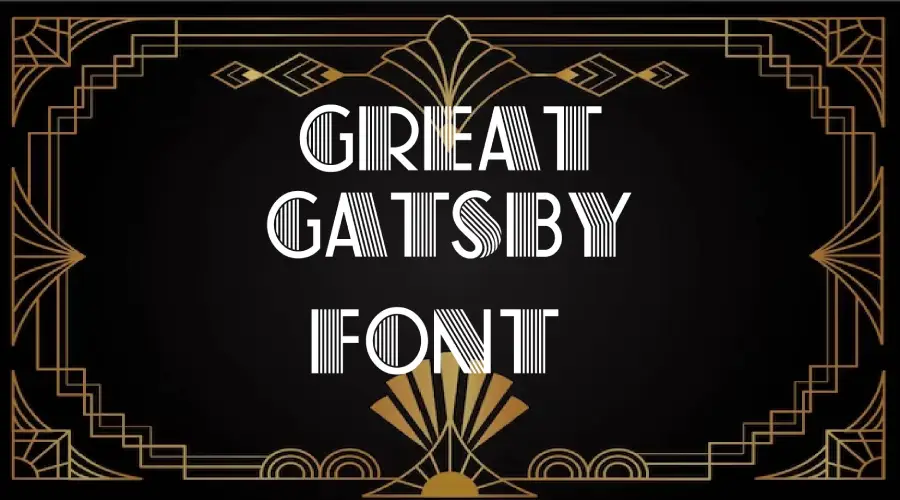
Great Gatsby Font Free
The Great Gatsby does not have one official font, since editions and films use different lettering. The closest matches on this page are Atlas Regular, Andes and Crescendo, which lean toward the Art Deco look of the 1920s. You can preview all three in the generator below.
About the Great Gatsby font
The Great Gatsby is a novel by F. Scott Fitzgerald, published in 1925. It follows Jay Gatsby, a mysterious millionaire who throws lavish parties at his mansion on Long Island, New York, during the Jazz Age. The story is told by his friend Nick Carraway.
The novel has been adapted into films, plays and musicals. Many designers have made fonts that capture the era and the mood of the story, so there are several looks to choose from.
How the Great Gatsby font looks
There is no single official font, because different editions and adaptations use different lettering on covers and titles. The fonts below are close to the lettering seen in the novel and the movies.
Atlas Regular
Great Gatsby 2013 movie logo vs Atlas Regular font similarity
Atlas Regular is based on an older Art Deco font called Atlas. The style is used in The Great Gatsby 2013 film.
Andes
Great Gatsby 1974 movie logo vs Andes font similarity
Andes is a sans-serif font with a geometric, modern look, rounded corners and low contrast. It resembles the font in the 1974 Great Gatsby film logo.
Crescendo
What font is The Great Gatsby?
The novel has no single official font, and editions and films use different lettering. Atlas Regular, Andes and Crescendo are the closest options on this page.
Are there Great Gatsby fonts?